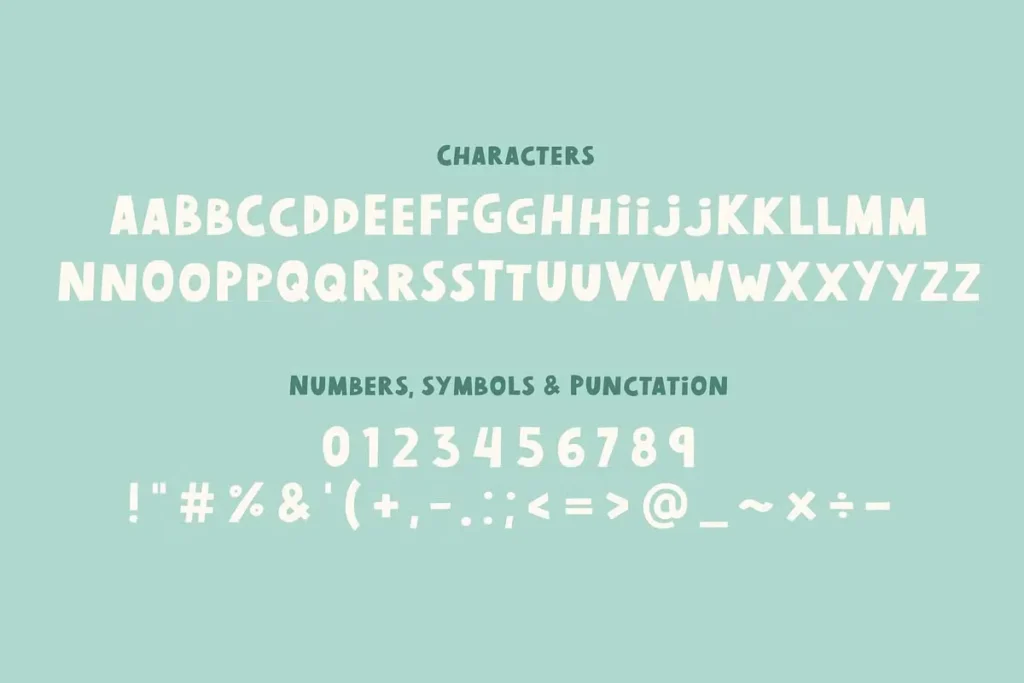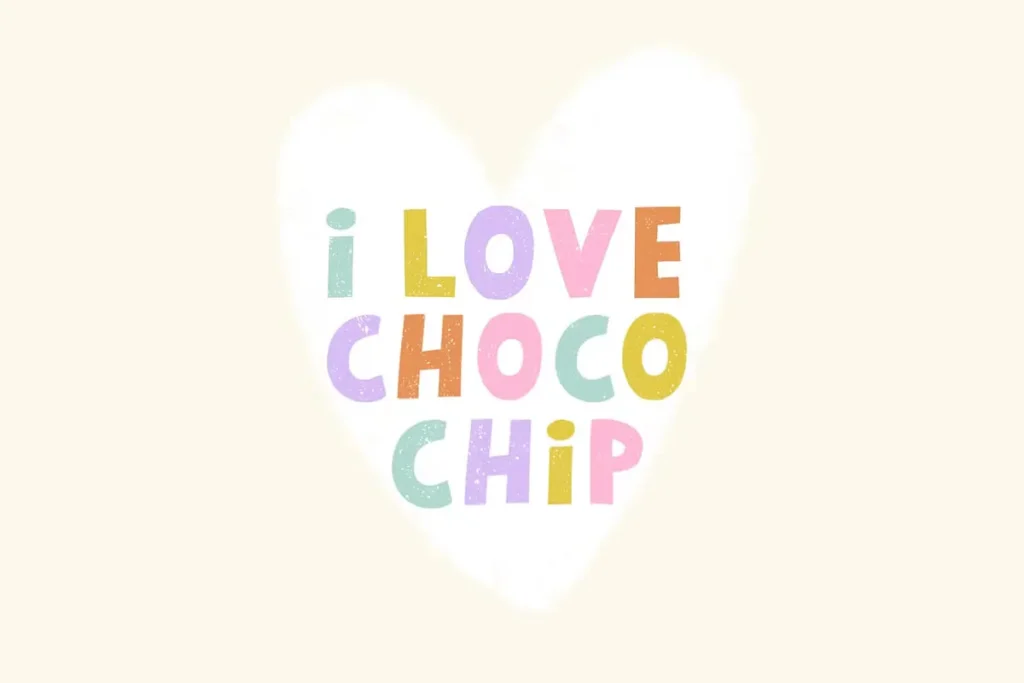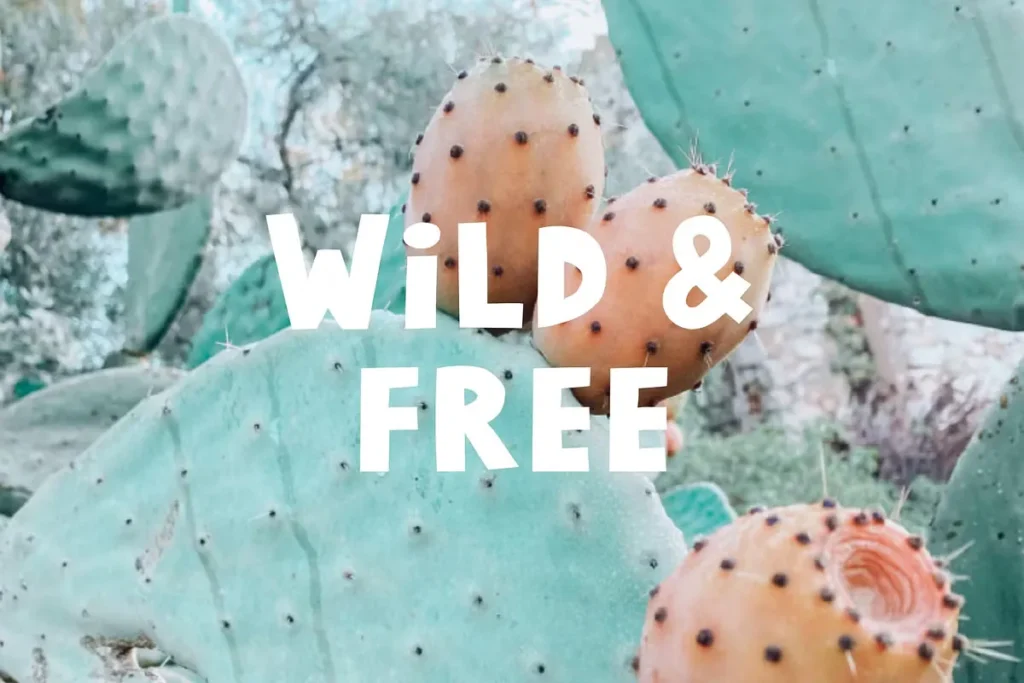
Choco Chip – Free Playful Handwritten Font
Choco Chip Free Playful Handwritten Font
Looking for a font that brings a fun, bold personality to your designs? Meet Choco Chip — a free playful handwritten font designed to add charm and creativity to your work.
Choco Chip stands out with its chunky, hand-drawn style, making it a perfect choice for projects that need a casual, personal feel. Whether you’re designing cute greeting cards, playful packaging, kids’ products, vibrant posters, or catchy social media graphics, this font adds a friendly and approachable vibe. Its bold, slightly funky curves create a lively look that grabs attention without trying too hard.
Crafted with love for designers who want a unique touch in their typography, Choco Chip includes a full set of characters, punctuation marks, and essential symbols. It’s a versatile typeface that lets you play around with styles, whether for digital artwork or printed materials.
Ideal for quotes, invitations, product labels, or any creative project, Choco Chip blends the feel of hand lettering with the ease of a digital font. Its playful, fat-lettered style gives every word a chunky, cheerful look that feels handmade and expressive.
Add a personal flair to your designs with Choco Chip — a bold, fun, and funky handwritten font that’s all about creativity and character.